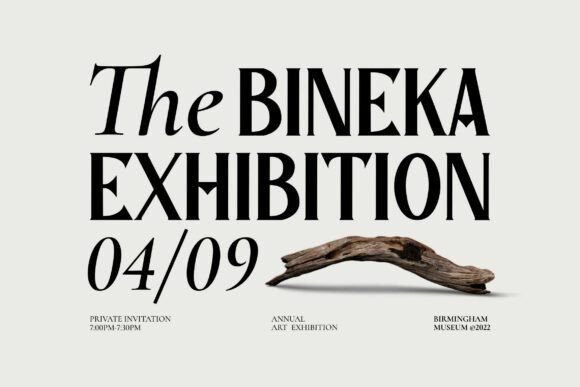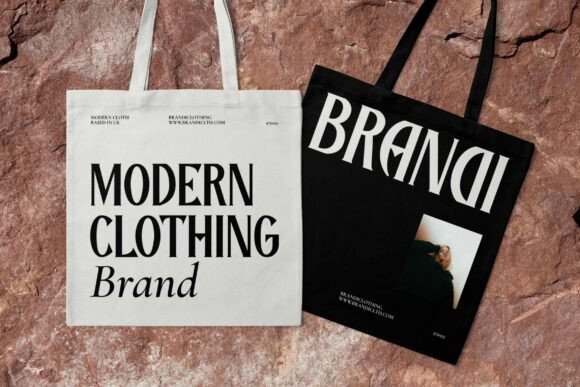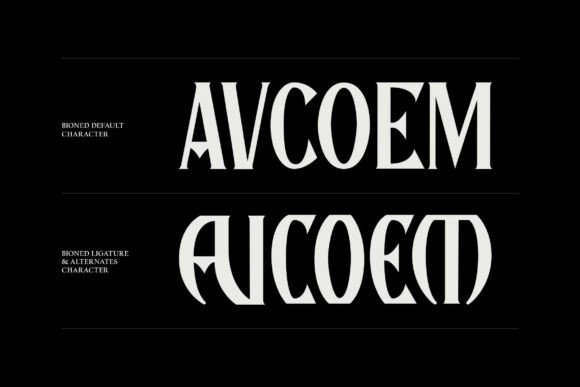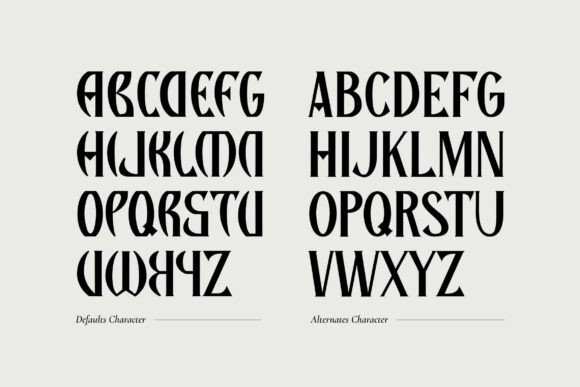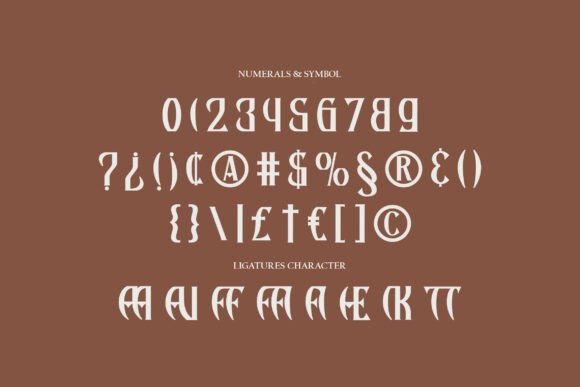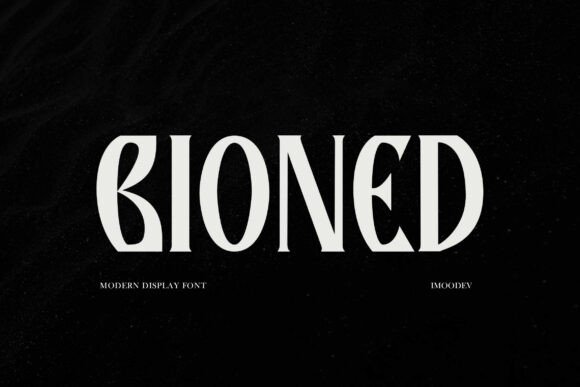
The Elegant Gothic Charm of Bioned Font
I’ll never forget the design project that led me to discover the Bioned font. I was working on a luxury fashion brand’s visual identity, and my client requested a bold, elegant font that would convey sophistication and glamour. As I scoured the internet for the perfect typeface, I stumbled upon Bioned – and it was love at first sight! 💕
With its unique blend of geometric precision and artistic curves, Bioned instantly captured the essence of high-end fashion. The font’s elegant gothic serifs, sharp curves, and knife-like tapered ends exuded luxury and refinement. I knew right then that Bioned was the perfect fit for my project.
An Honest Review of Bioned Font
What I Love About Bioned ✨
• ✅ Elegant gothic serifs that add a touch of sophistication to any design
• ✅ Sharp curves and knife-like tapered ends for a bold, luxurious feel
• ✅ Geometric precision and artistic curves that balance modernity and elegance
• ✅ Perfect for fashion branding, magazine covers, luxury packaging, and more
• ⚠️ Some users may find the font’s boldness overwhelming for certain design projects
• ⚠️ Limited use of Bioned in smaller font sizes, as its details may get lost
The Backstory of Bioned Font
Bioned’s design inspiration stems from the world of luxury and elegance. Its creator aimed to craft a font that would embody the sophistication and refinement of high-end fashion. By combining geometric precision with artistic curves, Bioned was born – a font that effortlessly shifts between elegant and bold.
Q: What is Bioned font best used for?
A: Bioned font is perfect for fashion branding, magazine covers, luxury packaging, posters, event invitations, movie titles, and dark editorials.
Q: Is Bioned font suitable for body text?
A: While Bioned font is elegant and refined, it’s best suited for headlines, titles, and short paragraphs. Its boldness and ornate details may not be ideal for longer body text.